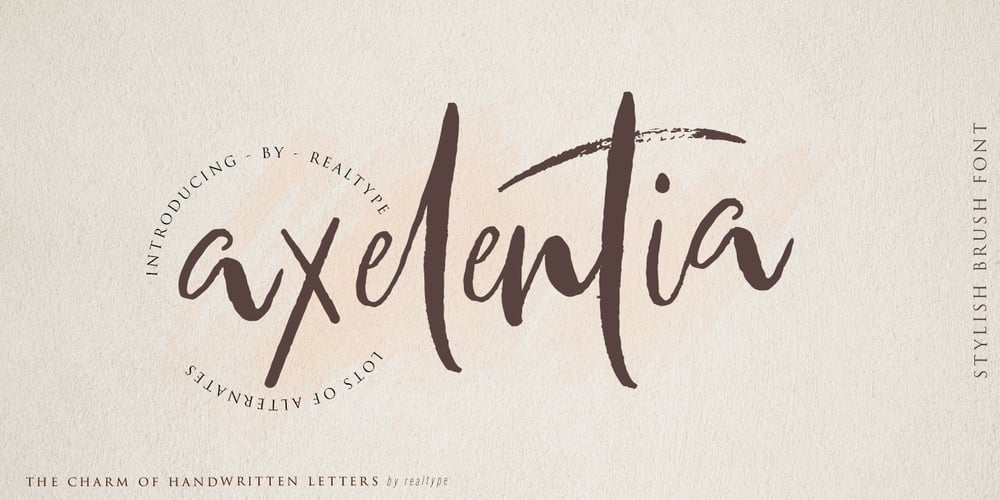
Axelentia Font Family was designed by Alam Syahril and published by Realtype. Axelentia contains 2 styles and family package options. Axelentia is a natural brushed font with a dirty texture. This font will give you a design that looks fresh and edgy and will look beautiful with offers, fashion magazines, stationery design logos, quotes, brands, greeting cards, packaging designs, posters, and more. Axelentia has two weights: Axelentia Regular and Axelentia Slant. They are complete with upper and lower case letters, as well as multi-language support, numbers, punctuation. Ligature and some additional letter characters are also provided.